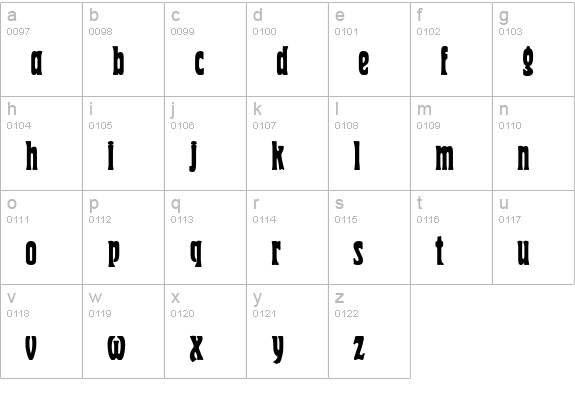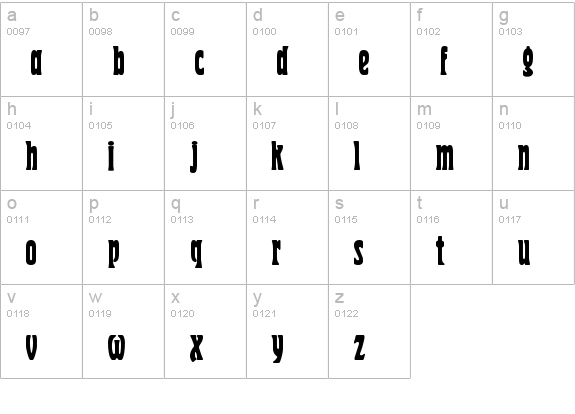
DG_Herold Font Details
Introducing DG_Herold font, a sophisticated and elegant typeface that exudes a timeless charm. With its sleek lines and classic appeal, this font is perfect for adding a touch of refinement to any design project. DG_Herold is versatile and can be used for various purposes, from branding to editorial design. What makes DG_Herold even more appealing is that it is available for free download at FontsMarket.com. Yes, you read that right - this stunning font can be yours without any cost! So why wait? Elevate your designs with DG_Herold and make a lasting impression today.